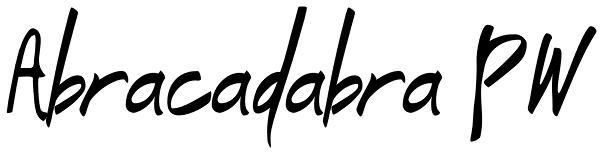
Abracadabra PW
This font is made of many unrestrained strokes of the pen and it is perfect for a freestyle look. It would be great to use for projects that you would want to look handwritten, lively and even calligraphic. It's very playful and mysterious. It's so...